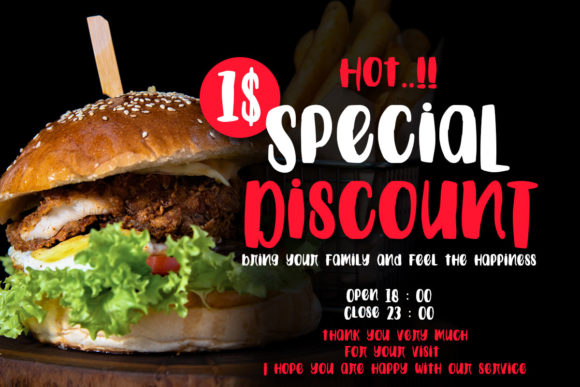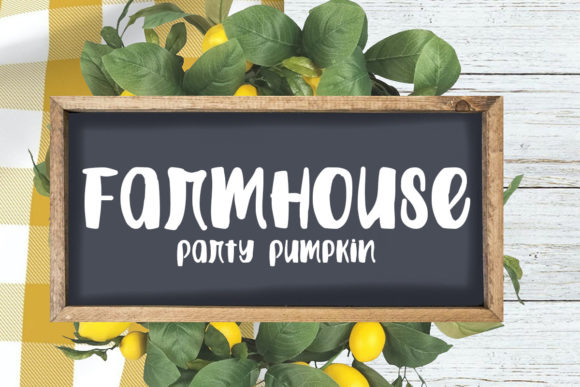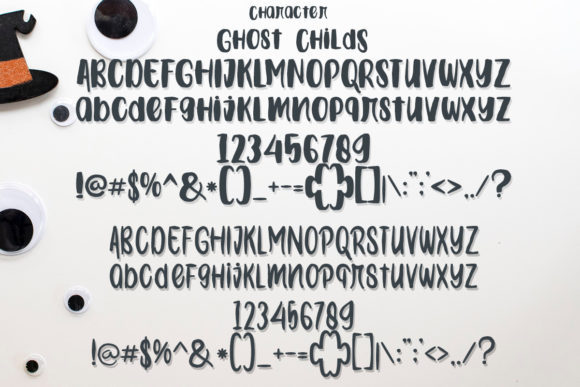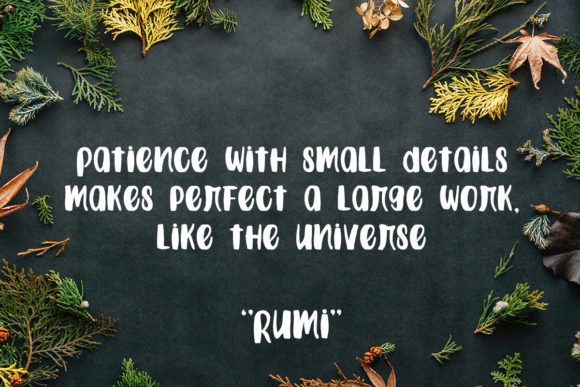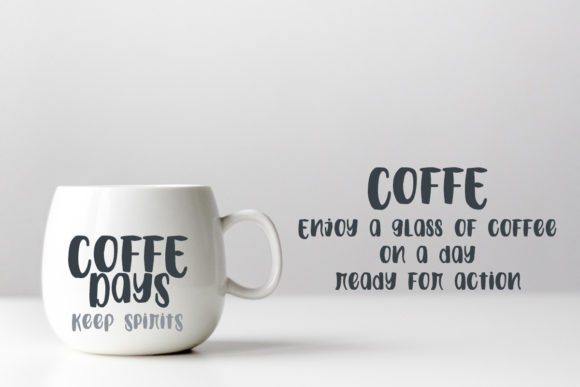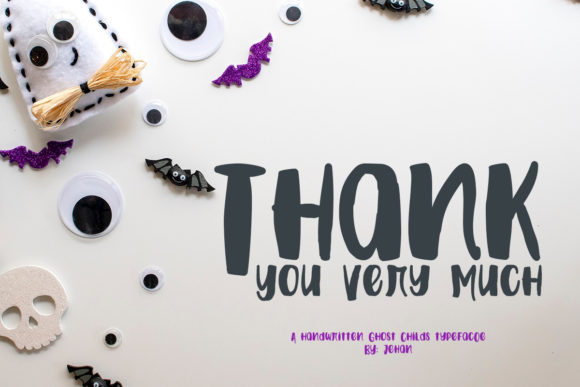
Introducing Ghost Childs Font: The Perfect Blend of Light and Bold
Are you tired of using the same old fonts in your creative projects? Look no further than Ghost Childs Font, a stunning light and thick brush display font that is sure to make your designs stand out. With its charming and bold aesthetic, Ghost Childs is the perfect choice for projects that require confident typography, such as brochures, billboards, books, magazines, and more.
The Unique Characteristics of Ghost Childs Font
Ghost Childs Font is a one-of-a-kind font that boasts a unique blend of light and thick brush strokes, giving it a distinctive and eye-catching appearance. The font’s light strokes add a touch of elegance and sophistication, while the thick strokes provide a bold and confident feel. This combination makes Ghost Childs perfect for designers who want to add a bit of personality to their work.
Why Choose Ghost Childs Font for Your Creative Projects?
There are many reasons why Ghost Childs Font is an excellent choice for creative projects. Here are just a few:
- Confidence-inspiring typography: Ghost Childs Font is designed to make a statement, with bold and confident typography that’s perfect for headlines, titles, and other display text.
- Versatility: This font is suitable for a wide range of creative projects, from brochures and billboards to books and magazines.
- Elegance and sophistication: The light strokes in Ghost Childs Font add a touch of elegance and sophistication, making it perfect for projects that require a bit of refinement.
- Easy to read: Despite its bold and confident appearance, Ghost Childs Font is easy to read, even at smaller sizes.
How to Use Ghost Childs Font in Your Designs
Ghost Childs Font is incredibly easy to use and can be incorporated into your designs in a variety of ways. Here are a few ideas to get you started:
- Headlines and titles: Use Ghost Childs Font to create bold and eye-catching headlines and titles that grab attention.
- Display text: Use Ghost Childs Font to add a bit of personality to your display text, such as on billboards, posters, and flyers.
- Logos and branding: Consider using Ghost Childs Font in your logos and branding materials to add a bit of elegance and sophistication.
Tips for Getting the Most Out of Ghost Childs Font
Here are a few tips for getting the most out of Ghost Childs Font:
- Experiment with different colors: Ghost Childs Font looks great in a variety of colors, so don’t be afraid to experiment and find the perfect hue for your design.
- Play with font sizes: Ghost Childs Font is easy to read at a variety of sizes, so try using it at different font sizes to create visual interest.
- Combine with other fonts: Consider combining Ghost Childs Font with other fonts to create a unique and eye-catching design.
In conclusion, Ghost Childs Font is a stunning light and thick brush display font that is perfect for creative projects that require confident typography. With its unique blend of light and bold strokes, Ghost Childs is sure to make your designs stand out. Whether you’re working on a brochure, billboard, book, or magazine, Ghost Childs Font is an excellent choice. So why wait? Download Ghost Childs Font today and start adding a bit of personality to your designs!
Key Features of Ghost Childs Font
- Light and thick brush display font
- Charming and bold aesthetic
- Suitable for a wide range of creative projects
- Easy to read
- Perfect for headlines, titles, and display text
Overall, Ghost Childs Font is a versatile and eye-catching font that is sure to elevate your designs. With its unique blend of light and bold strokes, Ghost Childs is the perfect choice for designers who want to add a bit of personality to their work.